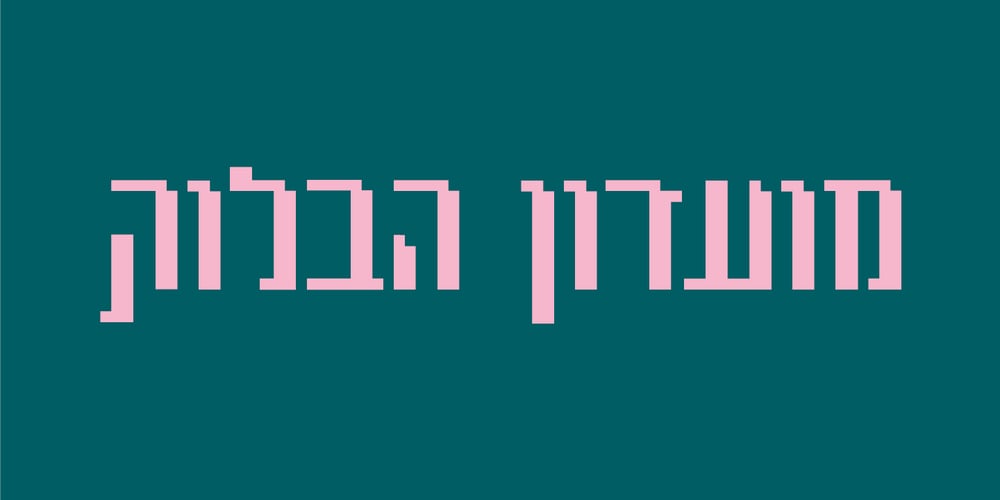
Neo MF
Neo MF font
Neo MF Font Family was designed by Dor Cohen and published by Masterfont. Neo MF contains 1 styles and family package options. Great for tough headlines and futuristic TV shows too.